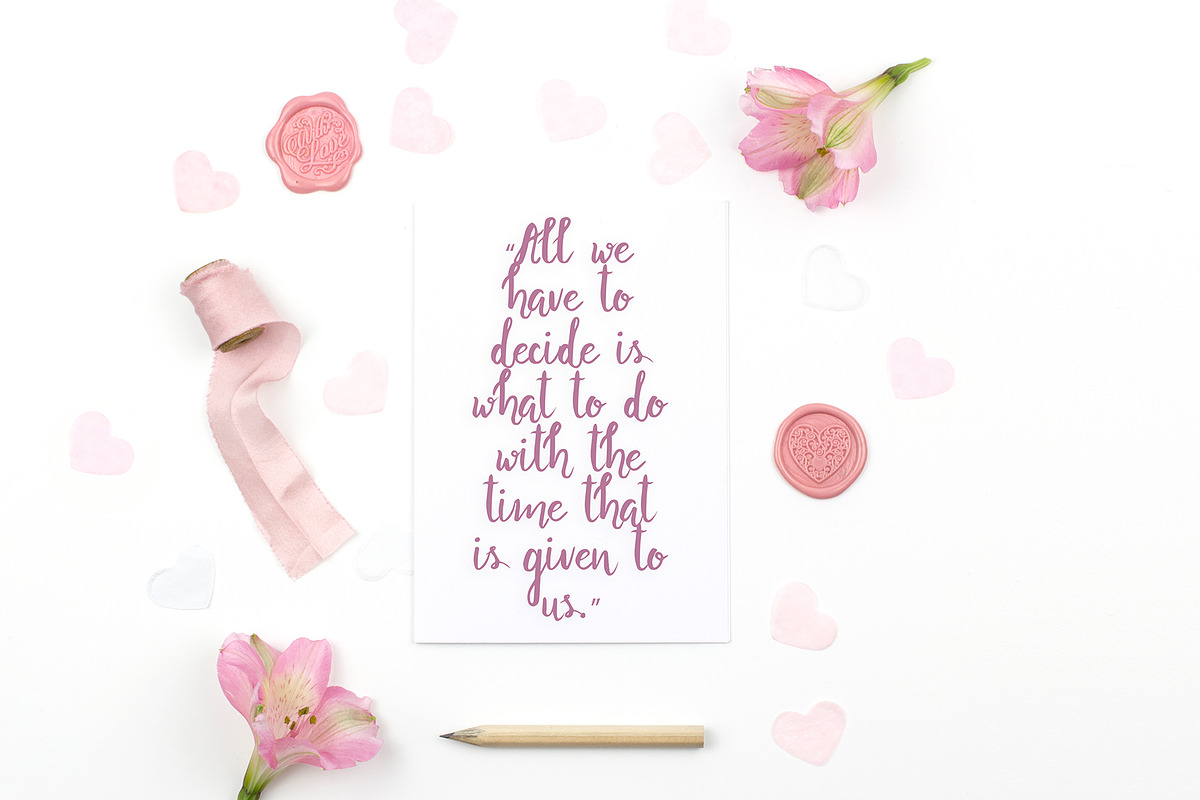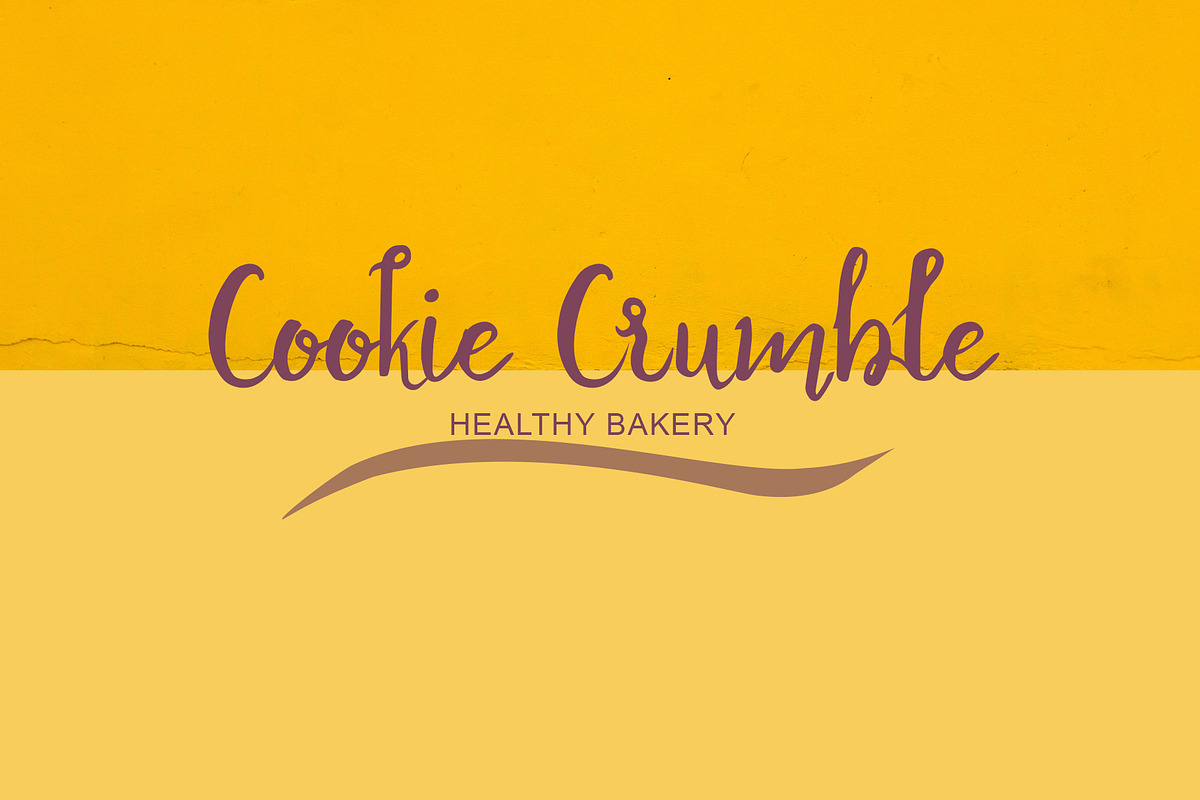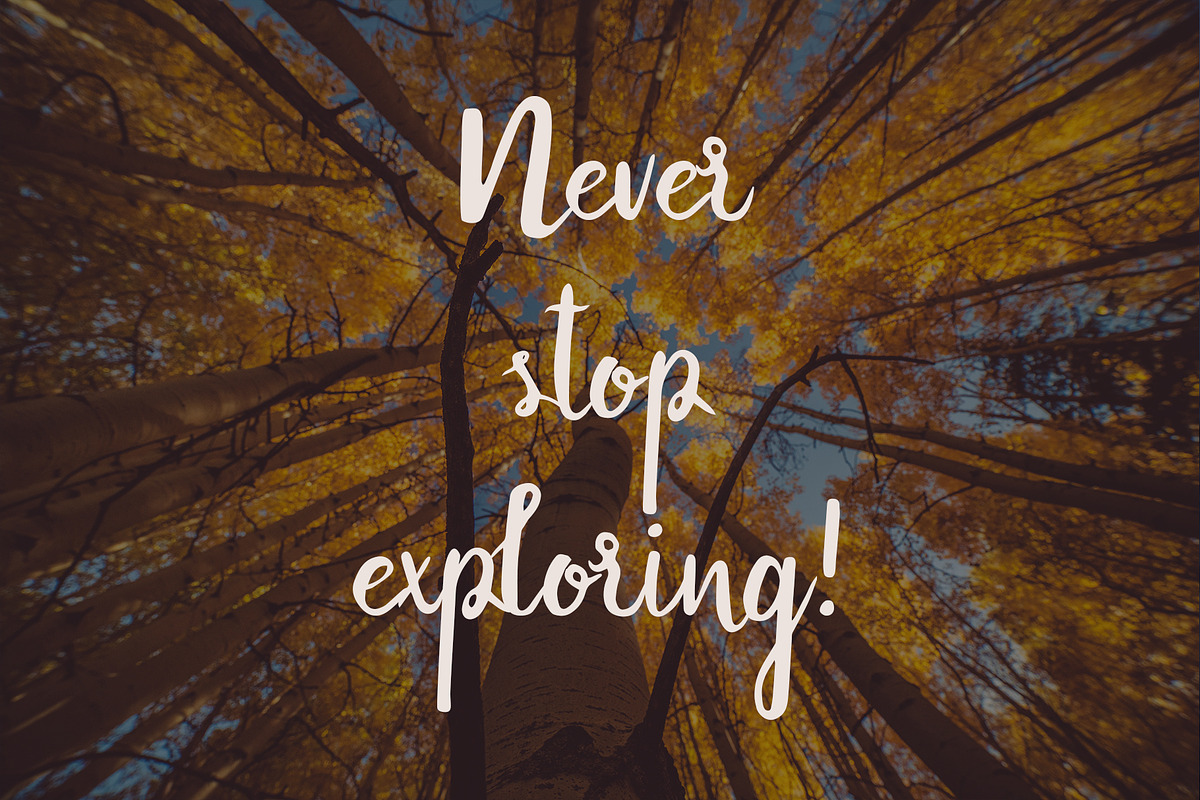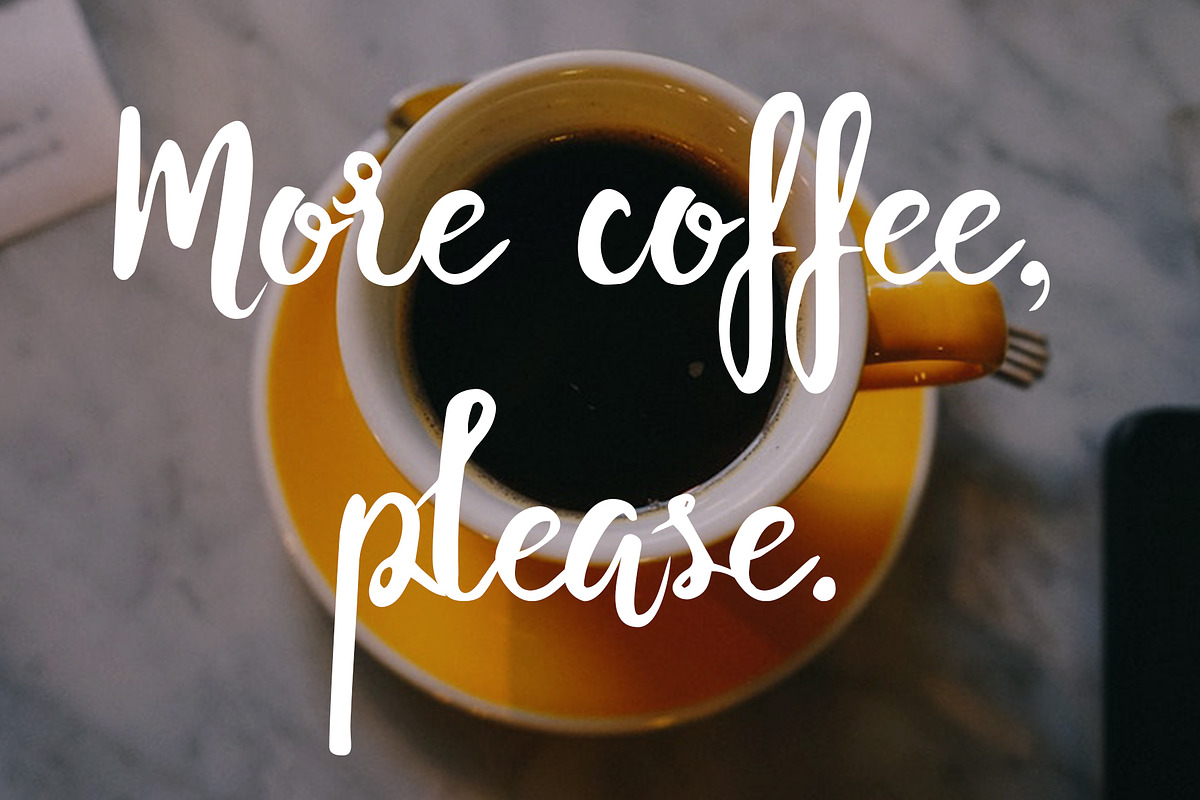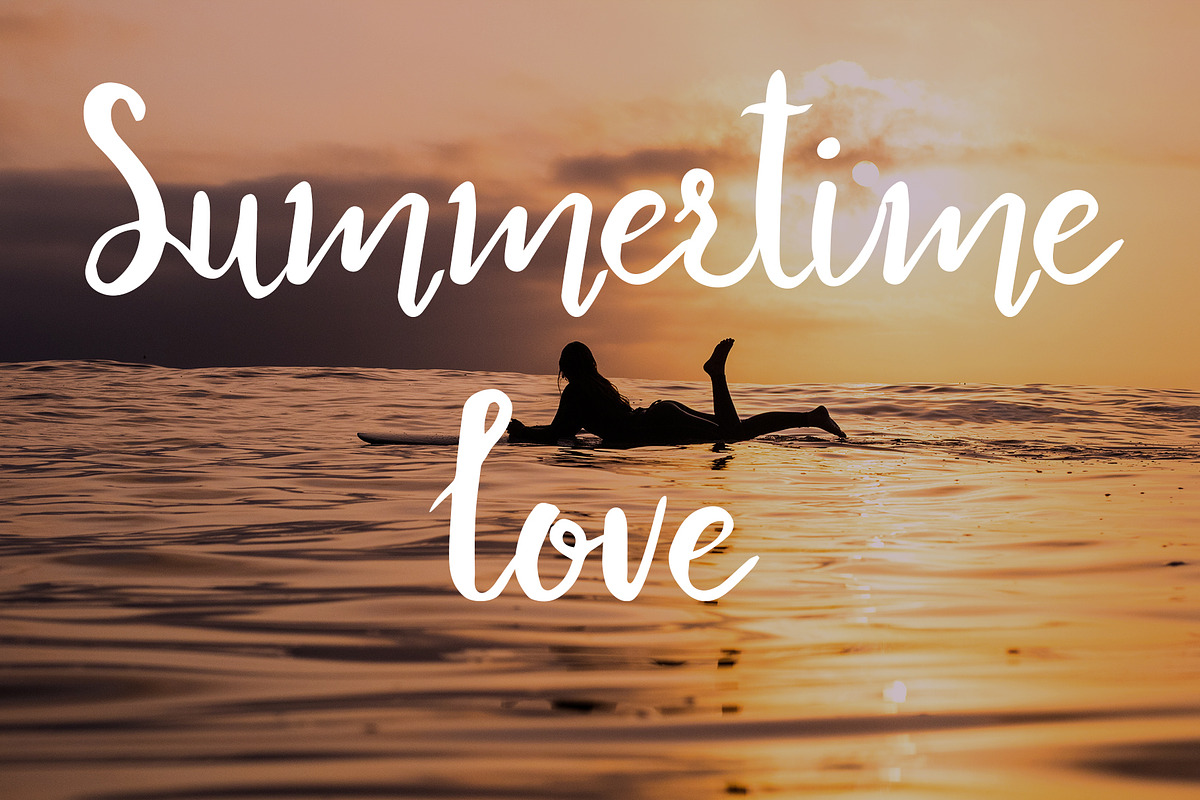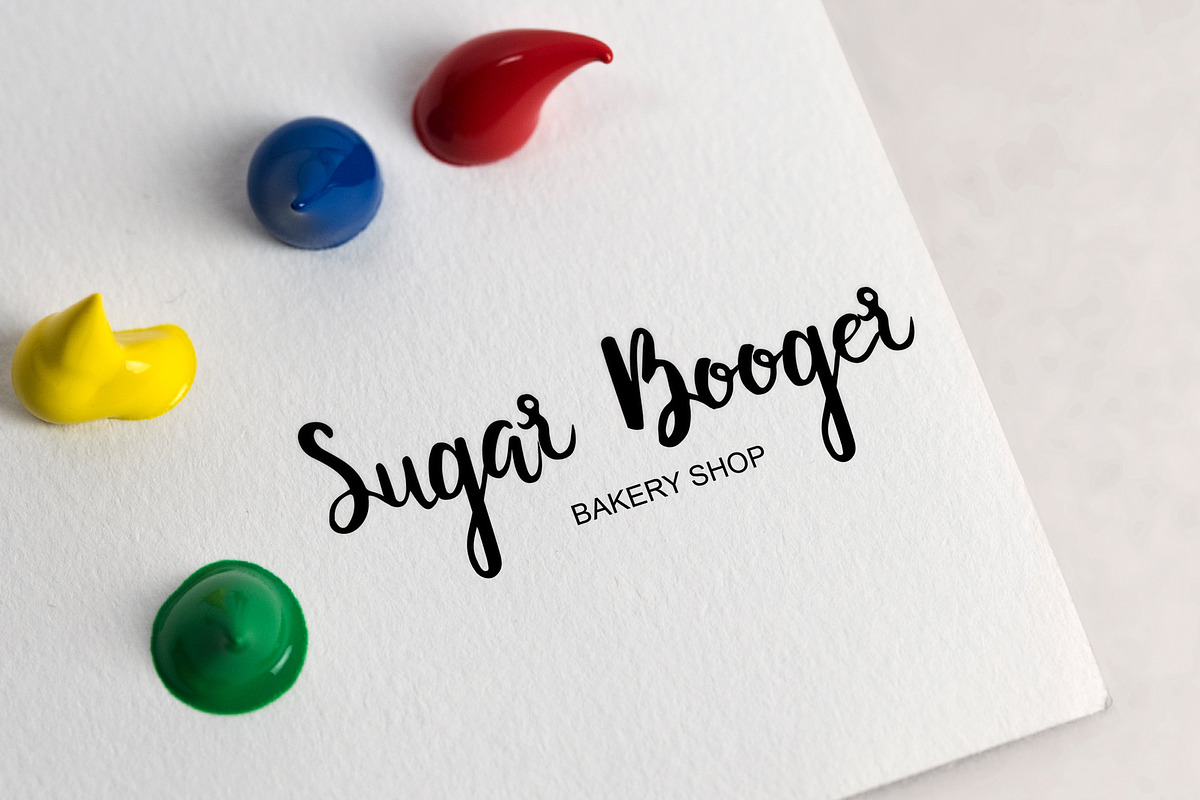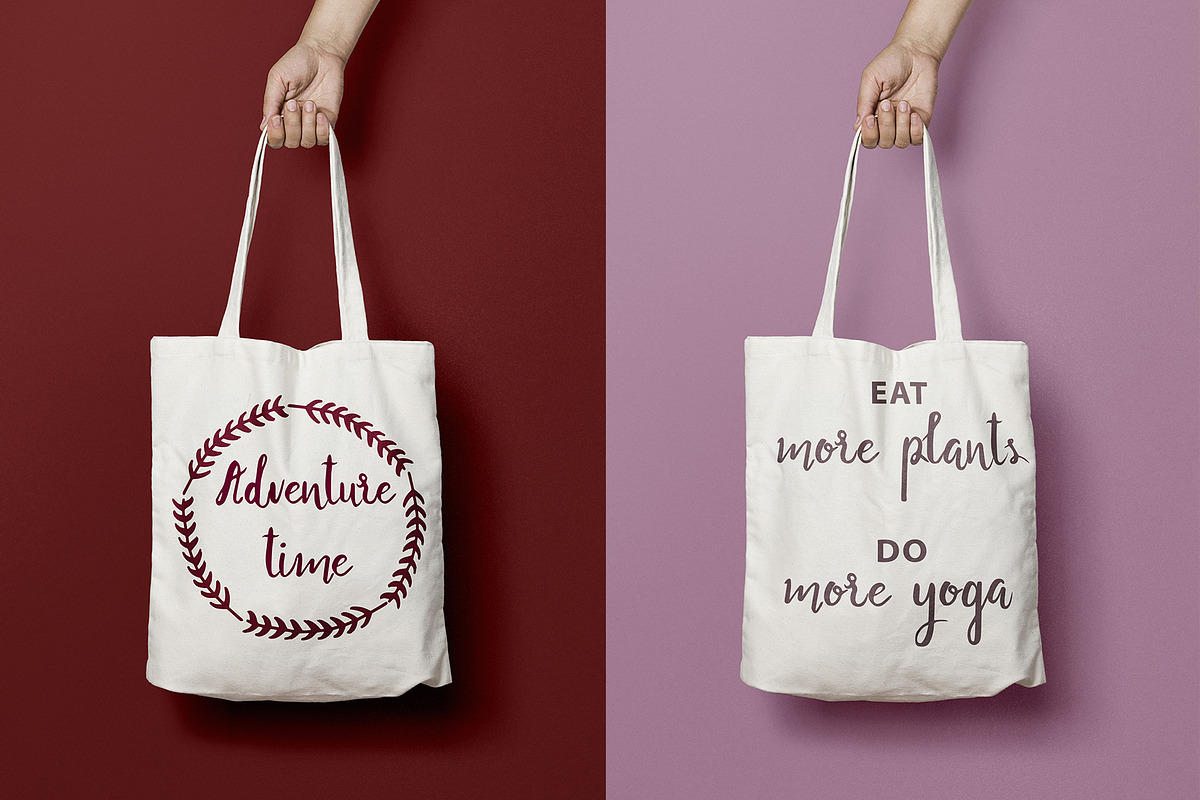
Banana Handwritten Font
Pretty, bouncy and modern new handwriting font script, including some cool swashes!
Banana Handwritten Font has a large variety of alternate characters, allowing you to make each word look unique and to bring true authenticity to your design!
Banana Handwritten Font offers beautiful typographic harmony for a diversity of design projects. It is perfect for adding a fresh & unique look to your designs, including greeting cards, labels, posters, quotes, branding & logo design, packaging design, social media design!
Banana Handwritten Font - A handwritten script font containing upper & lowercase characters, numerals and a large range of punctuation
Swashes - A set of 8 handmade swashes to use along with the font in order to elevate your visual creations!